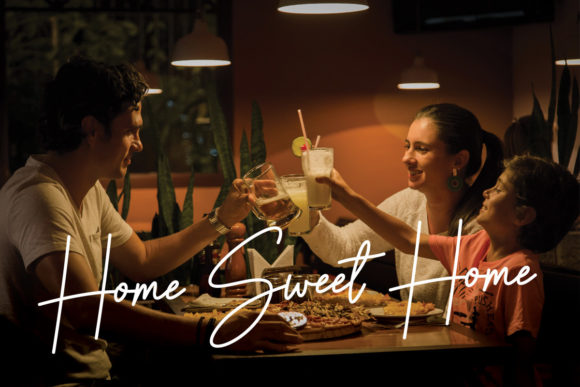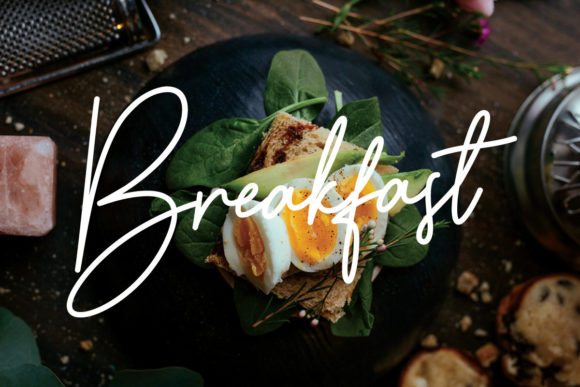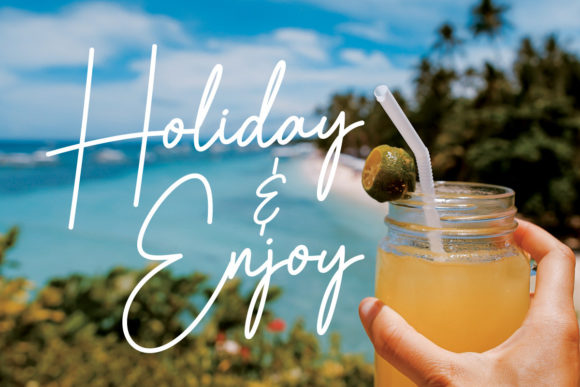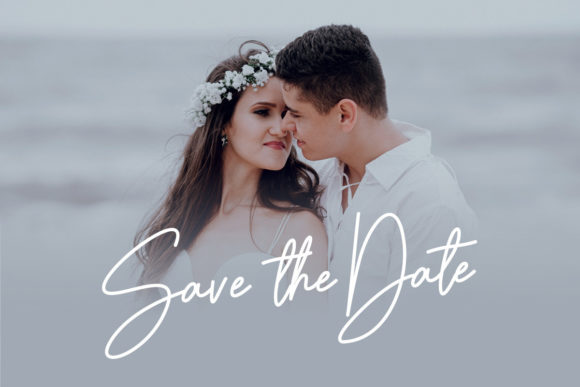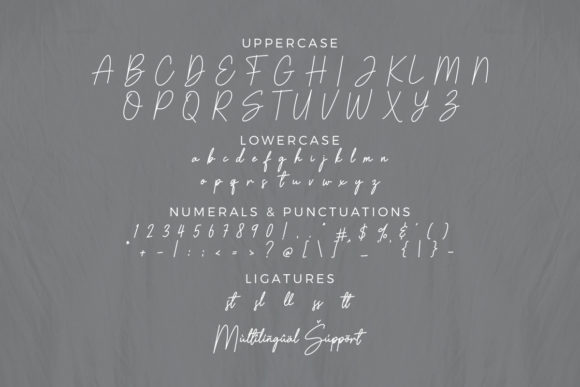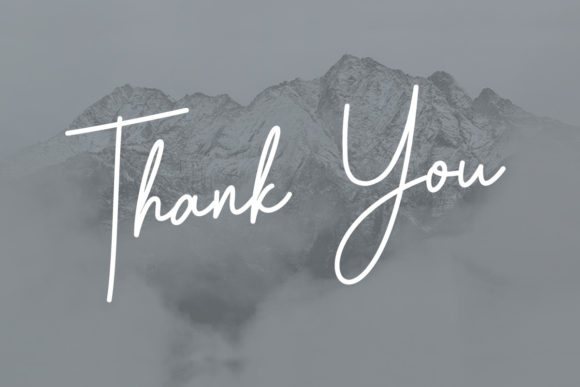
Bristany Font: The Ultimate Relaxed Script Font for Creative Projects
Are you tired of using the same old fonts for your creative projects? Look no further than Bristany Font, a relaxed, laid-back, and adaptable script font that’s perfect for adding a touch of personality to your designs. In this article, we’ll dive into the world of Bristany Font and explore its features, benefits, and uses, making it a must-have for designers and crafters alike.
What is Bristany Font?
Bristany Font is a beautiful script font that’s designed to bring a sense of calm and serenity to your designs. Its relaxed and laid-back style makes it perfect for a wide range of creative projects, from branding and advertising to packaging and digital media. With its unique and elegant letterforms, Bristany Font is sure to add a touch of sophistication and style to any design.
Key Features of Bristany Font
- Relaxed and Laid-Back Style: Bristany Font has a unique and relaxed style that’s perfect for creating designs that are calming and soothing.
- Adaptable: This font is highly adaptable and can be used for a wide range of creative projects, from digital media to print materials.
- Elegant Letterforms: Bristany Font features elegant and refined letterforms that add a touch of sophistication to any design.
- Easy to Read: Despite its elegant style, Bristany Font is easy to read, making it perfect for body text and headlines.
Benefits of Using Bristany Font
So, why should you use Bristany Font for your creative projects? Here are just a few benefits of using this amazing script font:
- Adds Personality to Your Designs: Bristany Font adds a touch of personality and style to your designs, setting them apart from the crowd.
- Perfect for Branding and Advertising: With its unique and elegant style, Bristany Font is perfect for branding and advertising projects that require a touch of sophistication.
- Great for Digital Media: Bristany Font is optimized for digital media, making it perfect for use in websites, social media graphics, and more.
- Easy to Pair with Other Fonts: Bristany Font is highly versatile and can be easily paired with other fonts to create stunning font combinations.
Uses of Bristany Font
Bristany Font is a highly versatile font that can be used for a wide range of creative projects, including:
- Branding and Advertising: Use Bristany Font to create stunning logos, business cards, and ad campaigns that stand out from the crowd.
- Digital Media: Add a touch of personality to your website, social media graphics, and digital marketing materials with Bristany Font.
- Packaging: Use Bristany Font to create eye-catching packaging designs that showcase your brand’s personality.
- Stationery: Add a touch of elegance to your stationery designs, including letterheads, invoices, and more.
Tips for Using Bristany Font
Here are a few tips for getting the most out of Bristany Font:
- Use it as a Headline Font: Bristany Font is perfect for use as a headline font, adding a touch of personality and style to your titles and headings.
- Pair it with Other Fonts: Experiment with pairing Bristany Font with other fonts to create stunning font combinations that add depth and interest to your designs.
- Use it for Body Text: Despite its elegant style, Bristany Font is easy to read, making it perfect for use in body text.
| Font Name | Bristany Font |
| Author | MultypeStudio |
In conclusion, Bristany Font is a must-have for designers and crafters looking to add a touch of personality and style to their creative projects. With its relaxed and laid-back style, adaptable nature, and elegant letterforms, Bristany Font is the perfect addition to any font library. Whether you’re working on a branding project, digital media design, or packaging design, Bristany Font is sure to enhance your creation and help you stand out from the crowd.